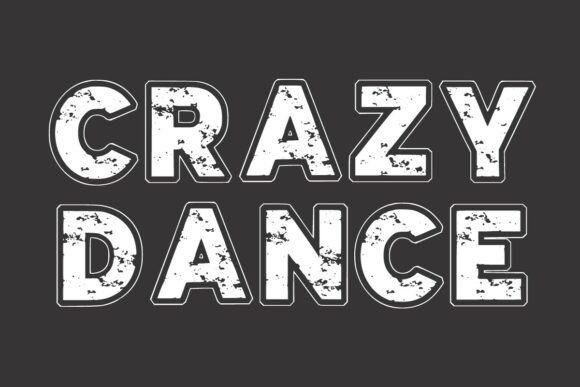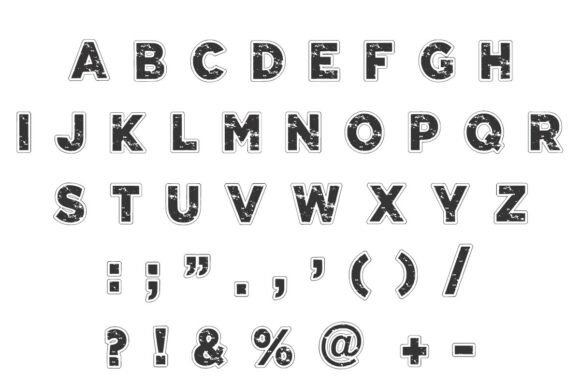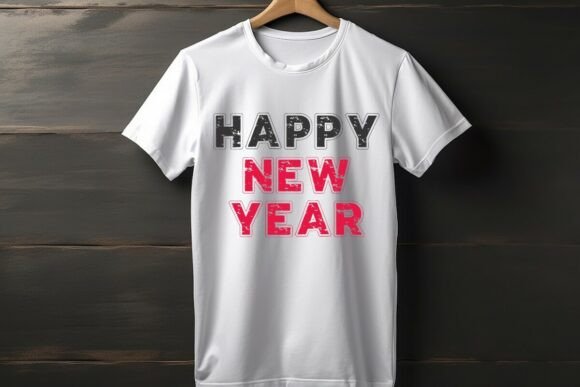
Introducing Black Army Font: The Ultimate Bold and Grunge Display Font
Are you looking for a font that exudes raw strength, ruggedness, and a vintage edge? Look no further than Black Army Font, a bold, grunge display font that’s perfect for creating commanding visuals with a distressed, military-inspired design. In this article, we’ll dive into the features and benefits of Black Army Font, and explore how it can elevate your design projects.
The Raw, Textured Finish of Black Army Font
Black Army Font boasts a raw, textured finish that feels perfectly worn and rugged. The font’s distressed design gives it a unique, authentic look that’s reminiscent of stencil-like labels and signage. The rugged textures and powerful letterforms make it an ideal choice for creating bold, eye-catching visuals that demand attention.
Military-Inspired Design with a Vintage Edge
The military-inspired design of Black Army Font is evident in its bold, commanding letterforms. The font’s stencil-like look adds a touch of authenticity and grit to any project, making it perfect for war-themed graphics, masculine branding, tactical gear, and apparel designs. Whether you’re creating posters, labels, or signage, Black Army Font delivers a raw, edgy look that’s sure to leave a lasting impression.
Black Army Font is a versatile font that’s perfect for a wide range of design projects. Whether you’re a designer, crafter, or DIY enthusiast, this font is ideal for creating bold, eye-catching visuals that showcase your brand or message. Here are some ideas for using Black Army Font:
- Posters and flyers: Create bold, attention-grabbing posters and flyers with Black Army Font.
- War-themed graphics: Add a touch of authenticity to your war-themed graphics with Black Army Font’s military-inspired design.
- Masculine branding: Use Black Army Font to create bold, masculine branding that exudes strength and ruggedness.
- Tactical gear and apparel designs: Create bold, eye-catching designs for tactical gear and apparel with Black Army Font.
Key Features of Black Army Font
Here are some key features of Black Army Font:
- Bold, grunge display font with a raw, textured finish
- Distressed, military-inspired design
- Rugged textures and powerful letterforms
- Stencil-like look adds authenticity and grit to any project
- Ideal for posters, war-themed graphics, masculine branding, tactical gear, and apparel designs
Why Choose Black Army Font?
So why choose Black Army Font for your design projects? Here are just a few reasons:
- Unique, authentic look: Black Army Font’s distressed design gives it a unique, authentic look that’s hard to find in other fonts.
- Versatility: Black Army Font is perfect for a wide range of design projects, from posters and flyers to tactical gear and apparel designs.
- High-quality design: Black Army Font is designed to high standards, ensuring that your design projects look professional and polished.
In conclusion, Black Army Font is a bold, grunge display font that’s perfect for creating commanding visuals with a distressed, military-inspired design. With its raw, textured finish and rugged textures, this font is ideal for designers and crafters looking to add a touch of authenticity and grit to their projects. Whether you’re creating posters, war-themed graphics, masculine branding, tactical gear, or apparel designs, Black Army Font is the perfect choice.